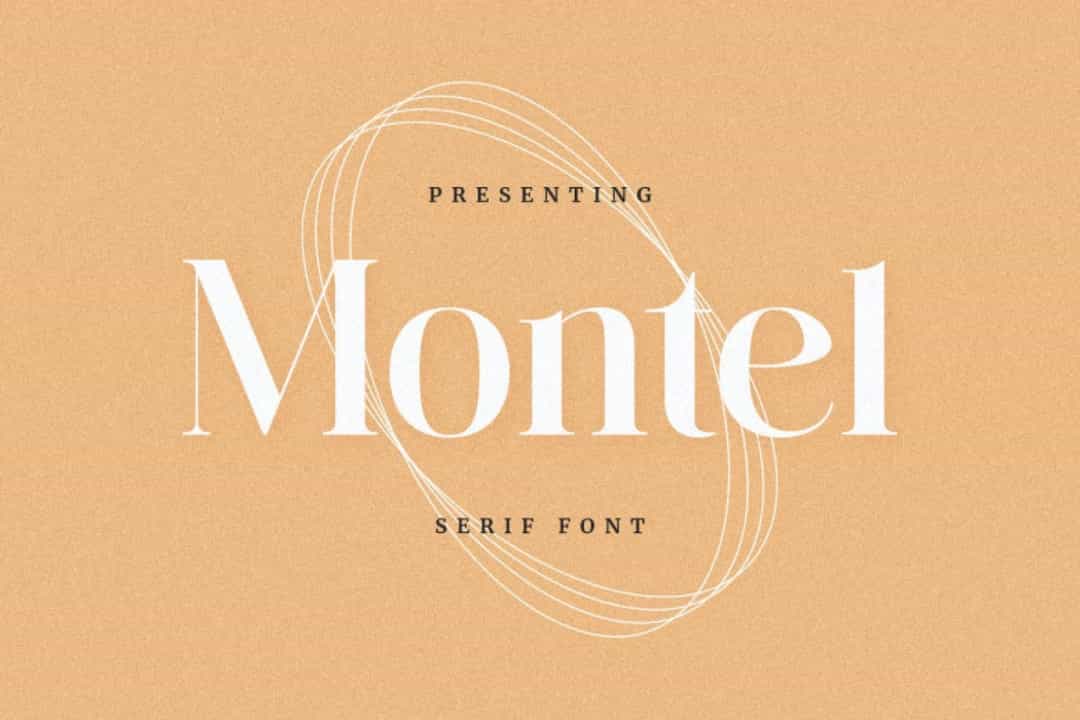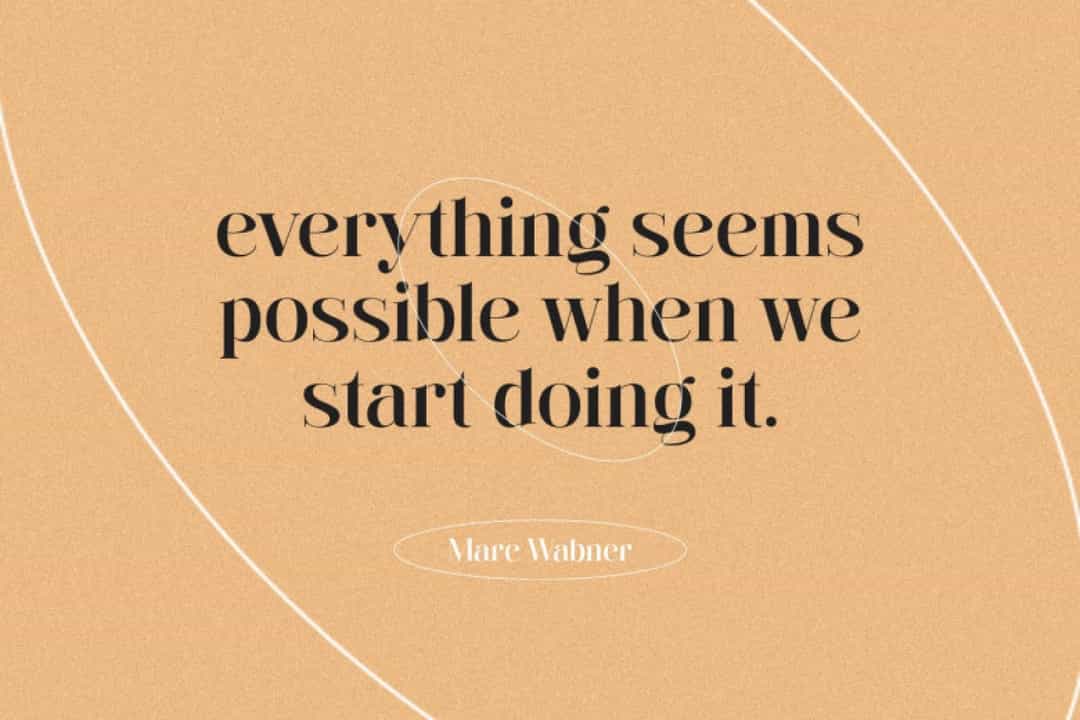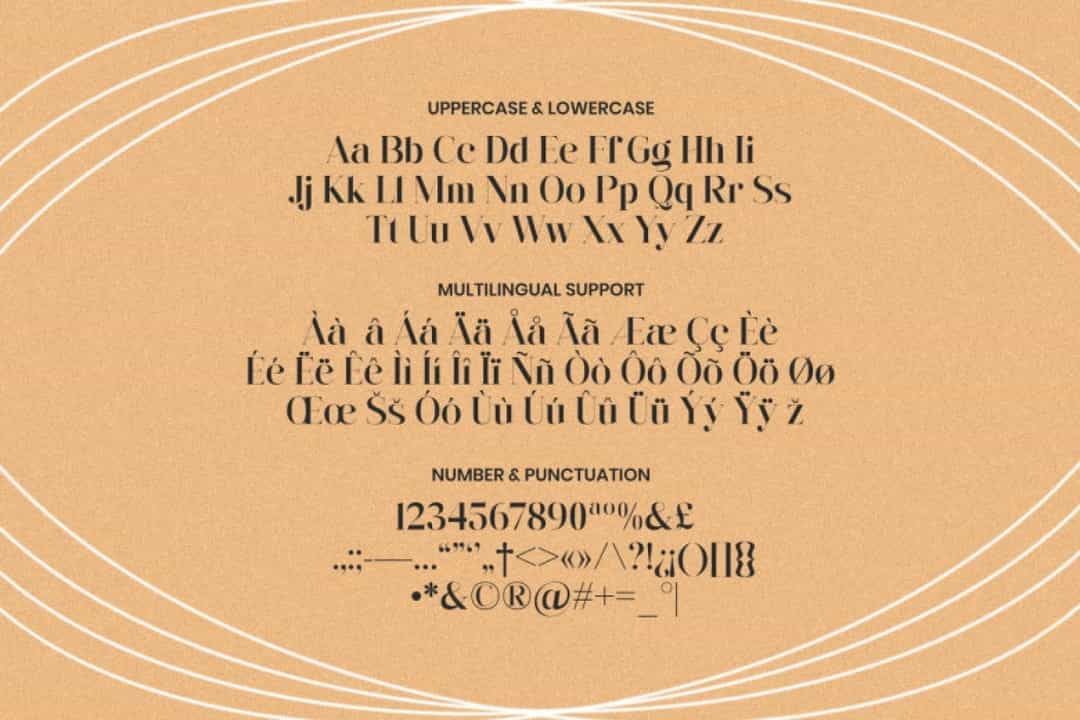
Montel is an elegant font with distinctive character. Perfect for logos and branding photographs, invitations watermarks, ads and product designs stationery wedding designs labels product packaging for special events plus so much more – use Montel Serif in any project to add style and personality!